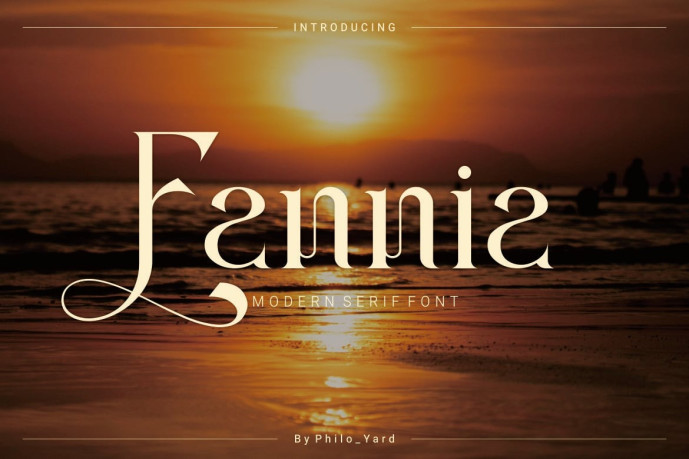
Fannia – Modern Serif Font
Designer: Philo_Yard
Fannia – Modern Serif Font, a sophisticated sans serif typeface designed for timeless elegance and a modern design aesthetic. With graceful curves, subtle contrasts, and stylish ligatures, it’s designed to bring luxury and refinement to your creative projects.
Ideal for branding, logos, fashion editorials, wedding invitations, packaging design, social media posts, and high-end advertising, this typeface accentuates every detail with a sense of exclusivity and artistic charm. Its stylish alternates and multilingual support ensure flexibility for both display and editorial use.
Bring your brand to life with Fannia Serif, designed for impactful, modern branding.
Font Features